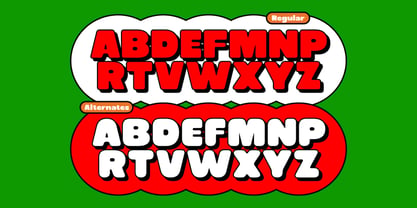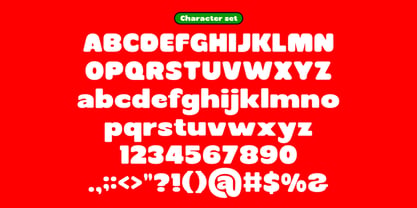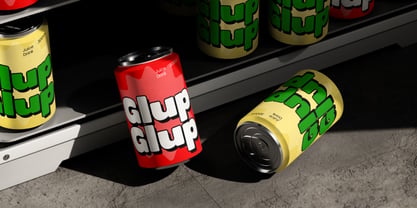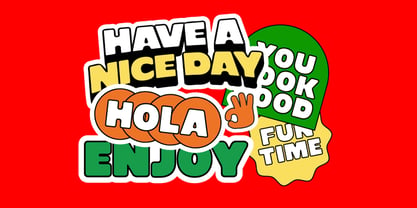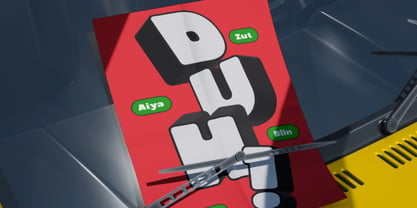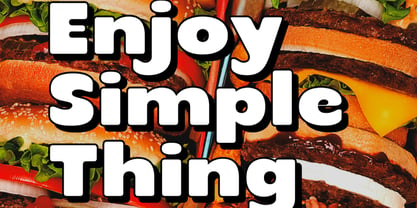
Thumpa
by Rasio Studio
The Thumpa Font Family was designed by Fajar Indra and published by Rasio Studio. Thumpa contains 1 styles.
Thumpa is a bold, joyful, and fully rounded sans serif typeface designed to infuse your creative projects with charm, warmth, and visual confidence. Crafted with thick strokes and softened edges, this typeface embraces a bubbly aesthetic that feels both strong and playful a perfect blend for designs that aim to stand out with a friendly and energetic voice. Its cheerful personality is especially effective for projects targeting younger audiences, family-friendly brands, food and beverage marketing, and entertainment. Yet, its clean structure ensures it still performs well in professional layouts, modern brand identities, and bold editorial design.
Designers: Fajar Indra
Publisher: Rasio Studio
Foundry: Rasio Studio